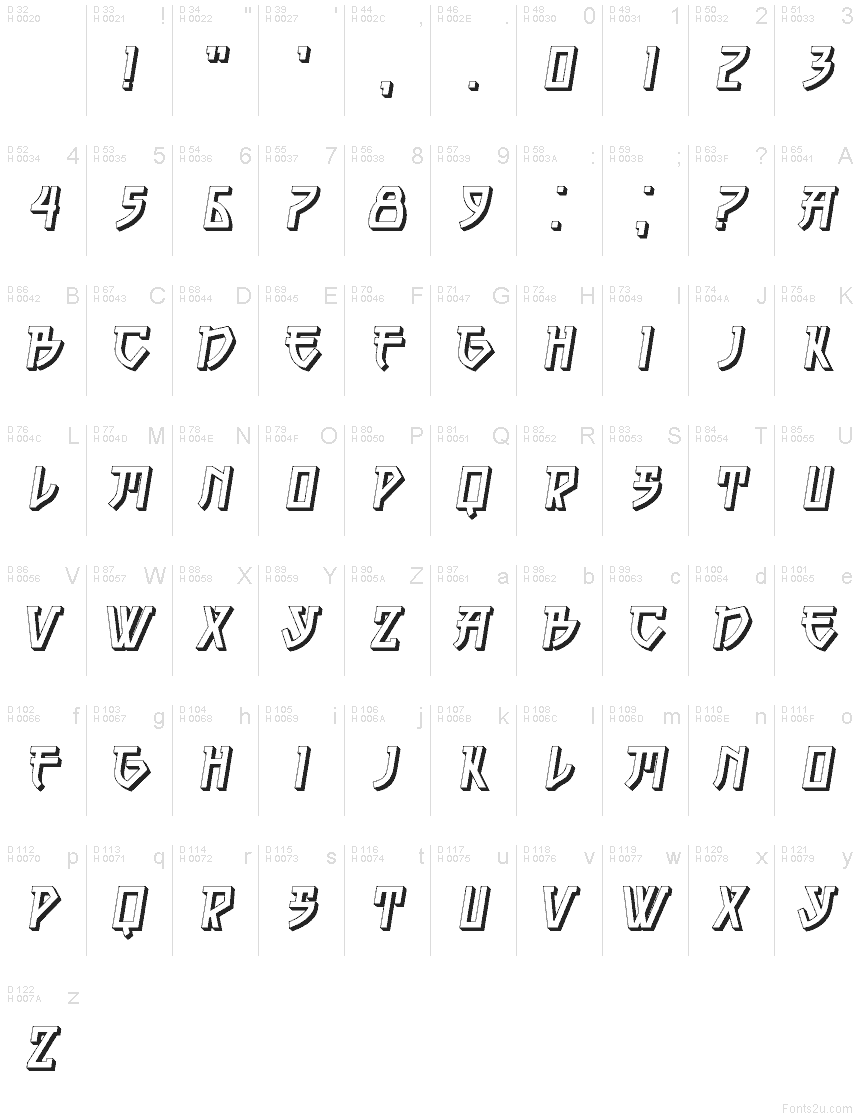
Kurosawa 3D Italic
Kurosawa 3D Italic font by Vladimir Nikolic is a free faux Japanese 3D display typeface that hits like a movie title frozen mid-action. Bold block letters lean forward with sharp, angled cuts and thick black shadows, creating a sense of motion and depth even in a single word. The Kurosawa family’s style feels cinematic and arcade-ready, with a crisp white face that pops hard against dark or saturated backgrounds.
Using Kurosawa 3D Italic, titles instantly feel like game logos, martial arts posters, synthwave flyers, anime fan art, or bold YouTube thumbnails. This free font shines on hero text, logos, event branding, stickers, and merch where you want drama and attitude at a glance. Keep it big and generously spaced, and pair it with a clean, neutral sans serif for body copy so the 3D letterforms can do the heavy lifting.